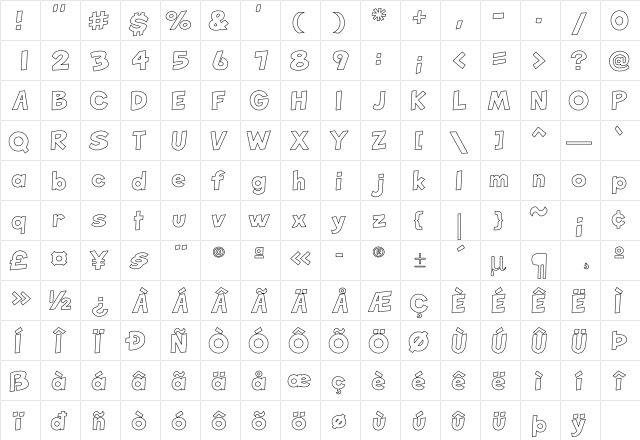
Mettler Ho Regular
Design Context for Mettler Ho Typeface
Mettler Ho is a composed and adaptable typeface that performs quietly and consistently across a wide range of design contexts.